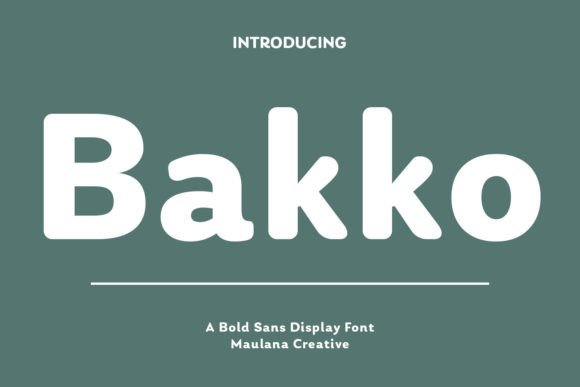
Introducing Bakko Font, the captivating sans serif typeface that will elevate your designs to new heights. Crafted with precision and creativity, Bakko empowers you to make a lasting impression with every letter you write.
Unleash your creativity with Bakko's unmatched versatility. Its clean lines and professional demeanor adapt effortlessly to any design aesthetic, from elegant logos to eye-catching posters. The crisp, modern strokes of Bakko bring a touch of sophistication to your projects, adding a touch of class that will leave your audience spellbound.
But it's in the letter "S" that Bakko truly shines. The sweeping curves and dynamic shape create an unforgettable visual impact, making your words dance off the page. Whether you're crafting a signature brand logo or designing a captivating social media post, Bakko's "S" will command attention and ignite your imagination.
Dive into the world of Bakko and discover a font that is both visually stunning and infinitely adaptable. Its modern aesthetic and timeless appeal will captivate your audience and leave a lasting impression. Elevate your designs to new heights with Bakko Font, the ultimate choice for designers who demand excellence.